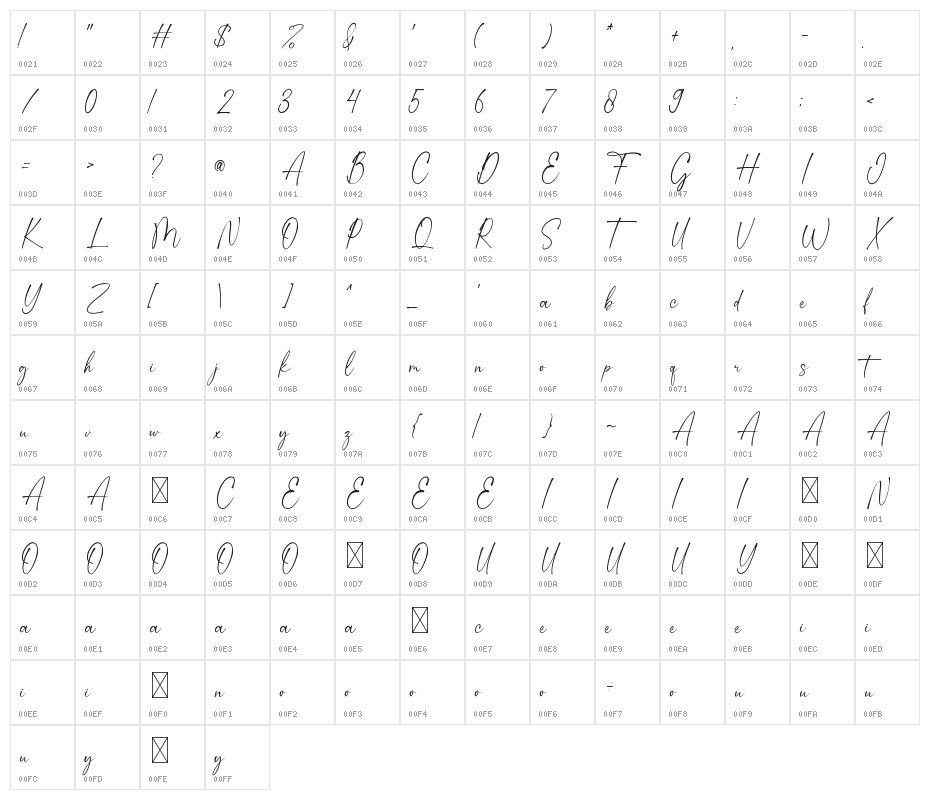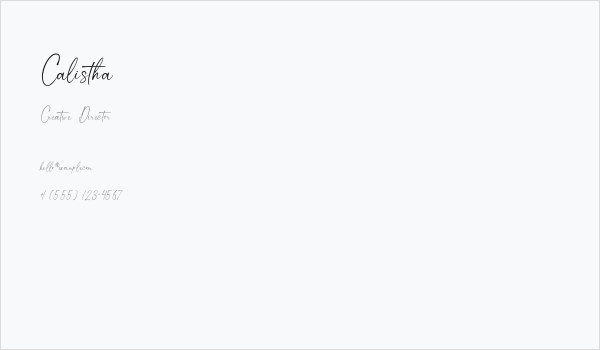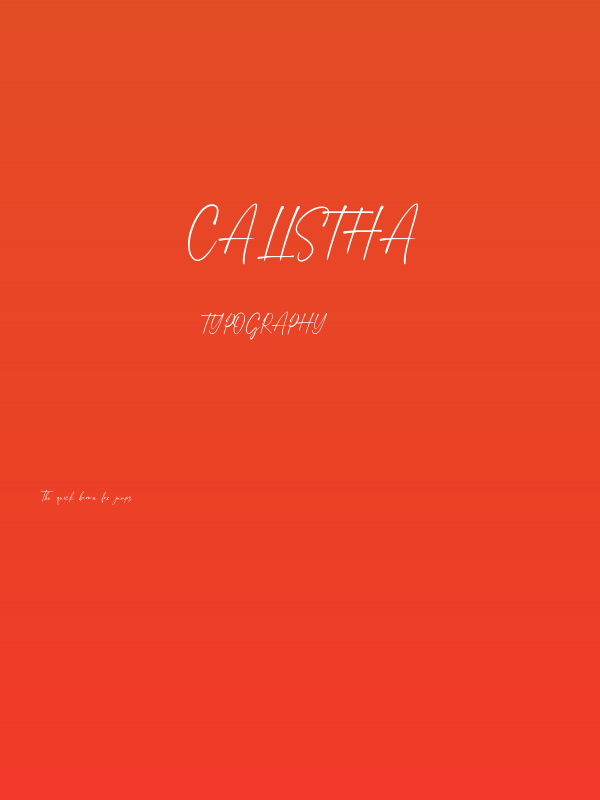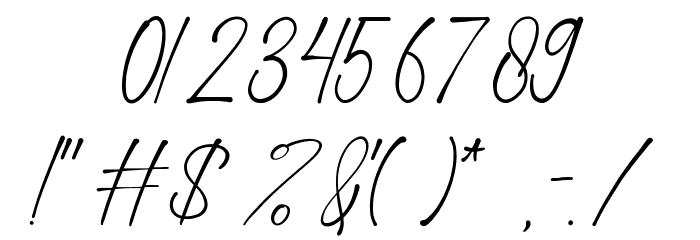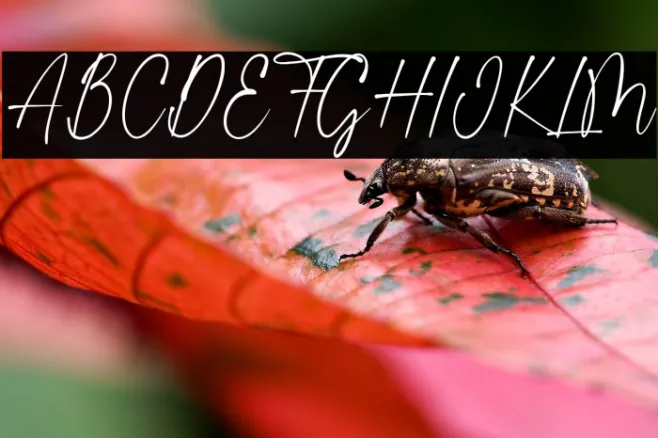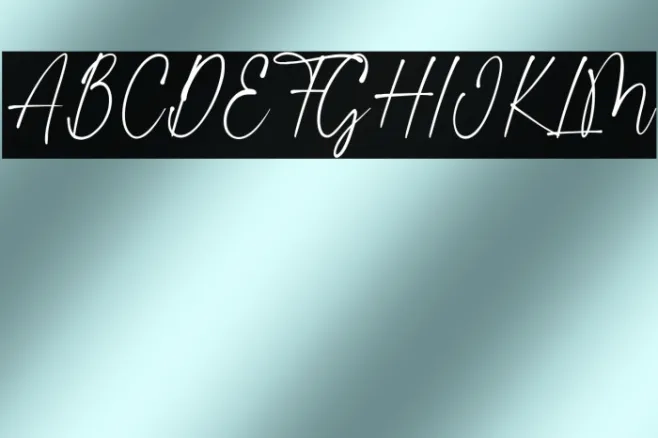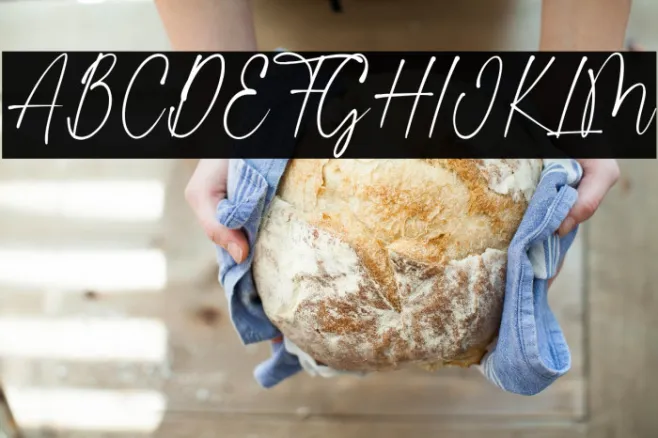
Calistha Font
Calistha Description
This font exudes elegance and sophistication with its flowing, cursive style. The uppercase letters are tall and slender, featuring graceful loops and swashes that add a touch of flair. The lowercase letters maintain a consistent flow, with smooth, connected strokes that enhance readability. The numerals are stylish yet clear, complementing the overall aesthetic. Special characters are thoughtfully designed, maintaining the font's cohesive look. This script font is perfect for projects that require a personal, handwritten touch, while still maintaining a sense of formality and refinement.
| Proposed Projects | Ideal for wedding invitations, greeting cards, branding, and elegant logos. |